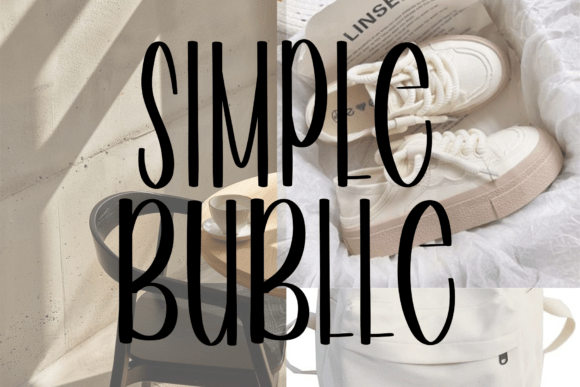
Introducing Quality Font: The Ultimate Casual Handwritten Font for Your Design Needs
Are you looking for a font that can add a personal touch to your designs? Look no further than Quality Font, a beautiful casual handwritten font that radiates warmth and personality. With its smooth strokes, natural curves, and easy-flowing letterforms, Quality Font captures the charm of authentic handwriting with a modern, approachable feel.
What Makes Quality Font Stand Out?
Quality Font is not just another font; it’s an experience. Its effortless style and versatile character make it ideal for a wide range of design applications, from quotes and invitations to branding and social media posts. Whether you’re a designer, a blogger, or a business owner, Quality Font is the perfect choice for anyone looking to add a personal and friendly touch to their designs.
One of the standout features of Quality Font is its readability. Unlike some handwritten fonts that can be difficult to read, Quality Font is clear and easy to understand, making it perfect for body text or captions. At the same time, it has a unique charm that sets it apart from more traditional fonts, making it perfect for adding a touch of personality to your designs.
The Benefits of Using Quality Font
So why should you choose Quality Font for your design needs? Here are just a few benefits of using this amazing font:
- Personal touch: Quality Font adds a personal and friendly touch to any design, making it perfect for blogs, social media posts, and other applications where you want to connect with your audience.
- Readability: Unlike some handwritten fonts, Quality Font is clear and easy to read, making it perfect for body text or captions.
- Versatility: Quality Font is versatile and can be used for a wide range of design applications, from quotes and invitations to branding and social media posts.
- Modern feel: Quality Font has a modern, approachable feel that will make your designs stand out from the crowd.
How to Use Quality Font in Your Designs
Using Quality Font in your designs is easy. Here are a few tips to get you started:
- Pair it with other fonts: Quality Font pairs well with other fonts, such as sans-serif fonts like Arial or Helvetica. Try pairing it with a bold font for headings and a lighter font for body text.
- Use it for quotes: Quality Font is perfect for quotes, as it adds a personal and friendly touch to the text.
- Use it for invitations: Quality Font is also great for invitations, as it has a warm and inviting feel that’s perfect for weddings, birthday parties, and other celebrations.
- Experiment with colors: Quality Font looks great in a variety of colors, from bold and bright to soft and pastel. Experiment with different colors to find the one that works best for your design.
Why Quality Font is Perfect for Social Media
In today’s digital age, social media is an essential part of any marketing strategy. And with Quality Font, you can create social media posts that stand out from the crowd. Here are just a few reasons why Quality Font is perfect for social media:
- Personal touch: Quality Font adds a personal touch to your social media posts, making them more relatable and engaging.
- Readability: Quality Font is easy to read, even on small screens, making it perfect for social media posts.
- Flexibility: Quality Font can be used for a wide range of social media platforms, from Facebook and Twitter to Instagram and Pinterest.
In conclusion, Quality Font is a high-quality casual handwritten font that is perfect for any design need. With its smooth strokes, natural curves, and easy-flowing letterforms, it captures the charm of authentic handwriting with a modern, approachable feel. Whether you’re a designer, a blogger, or a business owner, Quality Font is the perfect choice for anyone looking to add a personal and friendly touch to their designs.
- Is Quality Font easy to read? Yes, Quality Font is designed to be clear and easy to read, making it perfect for body text or captions.
- Can I use Quality Font for social media? Yes, Quality Font is perfect for social media, as it adds a personal touch to your posts and is easy to read on small screens.